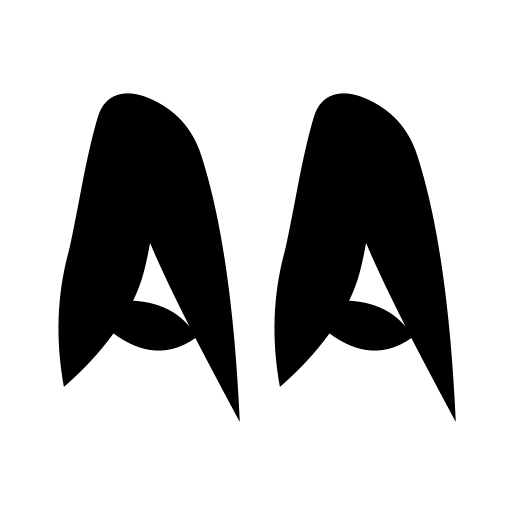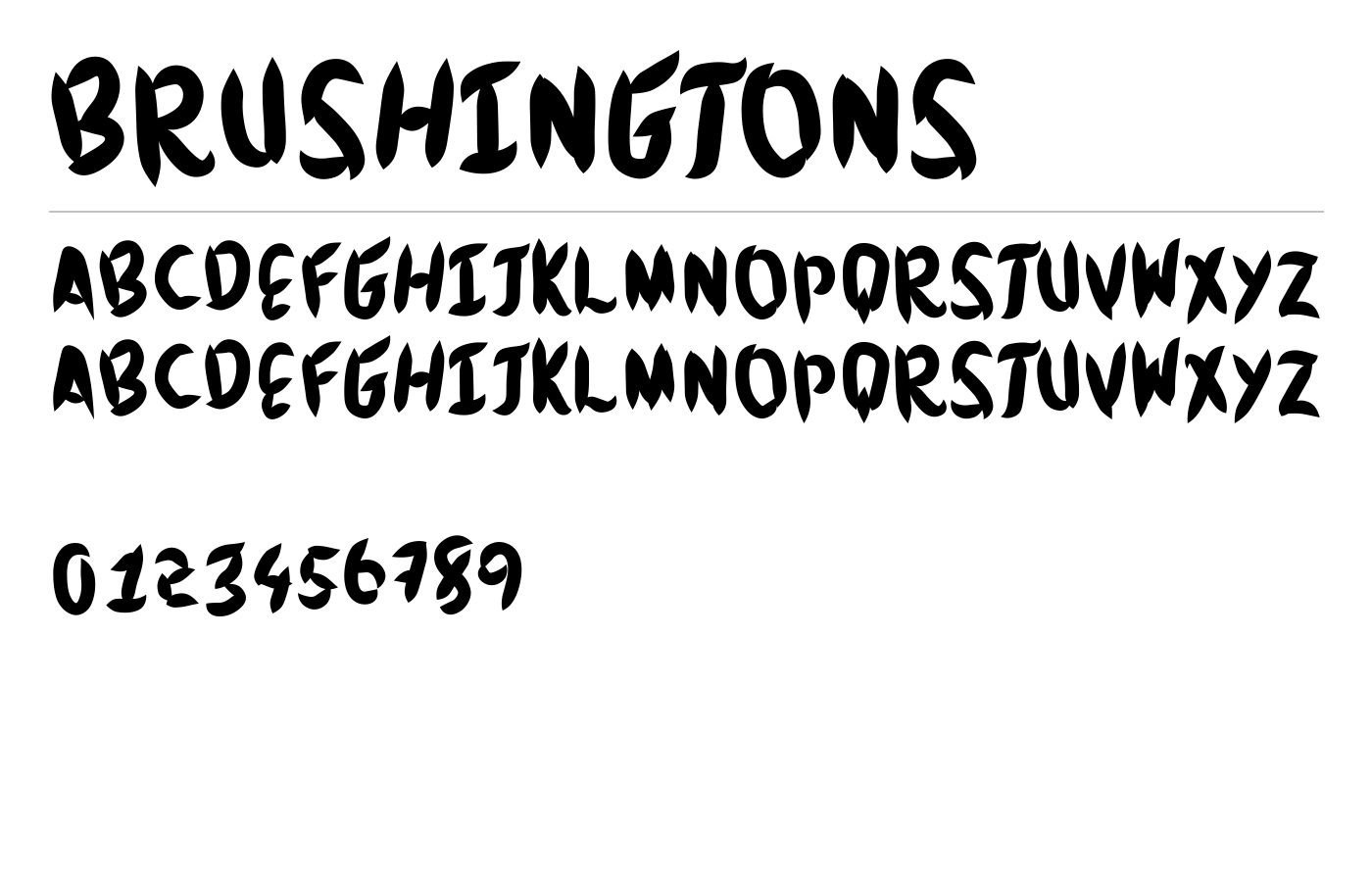
Brushingtons is a bold, playful script font that mimics the lively strokes of a brush pen, featuring thick, rounded shapes with sharp, pointed details that add character and energy. Its casual, handcrafted feel makes it ideal for creative projects, informal branding, and fun headlines where a friendly yet eye-catching style is desired. This font works best in designs that want to convey warmth and personality without sacrificing readability.
Brushingtons Font
About Brushingtons Font